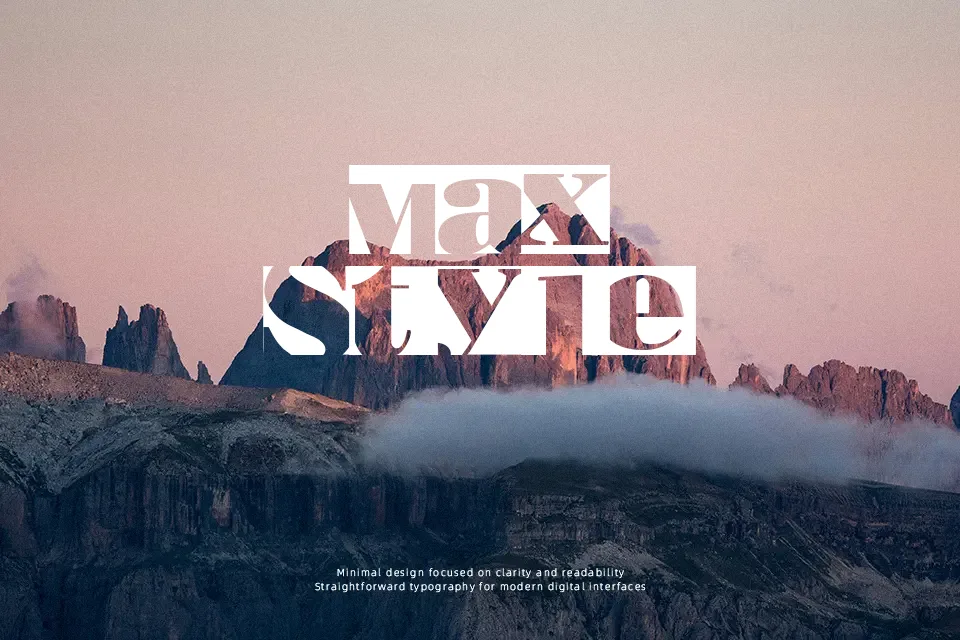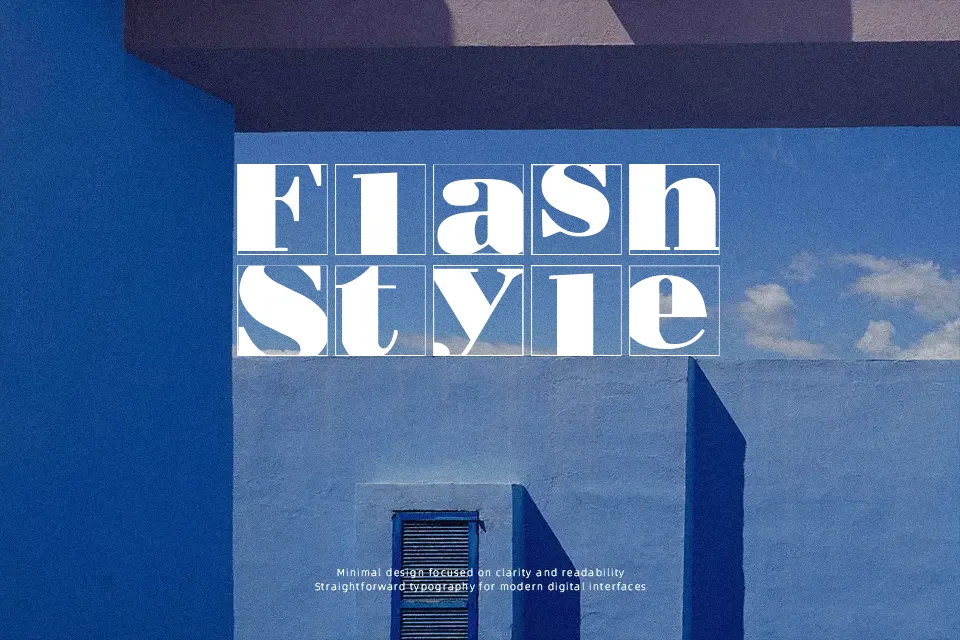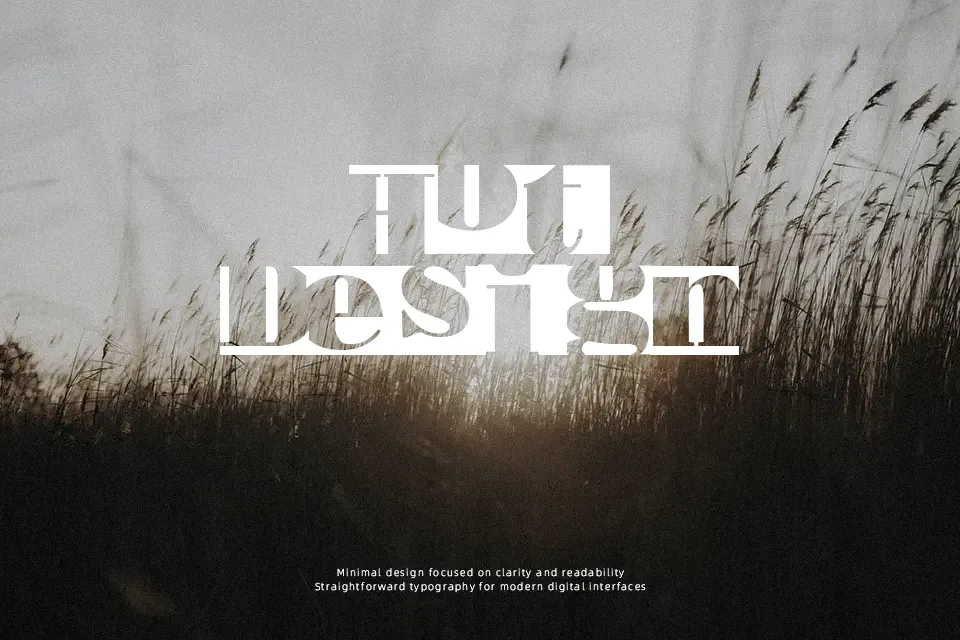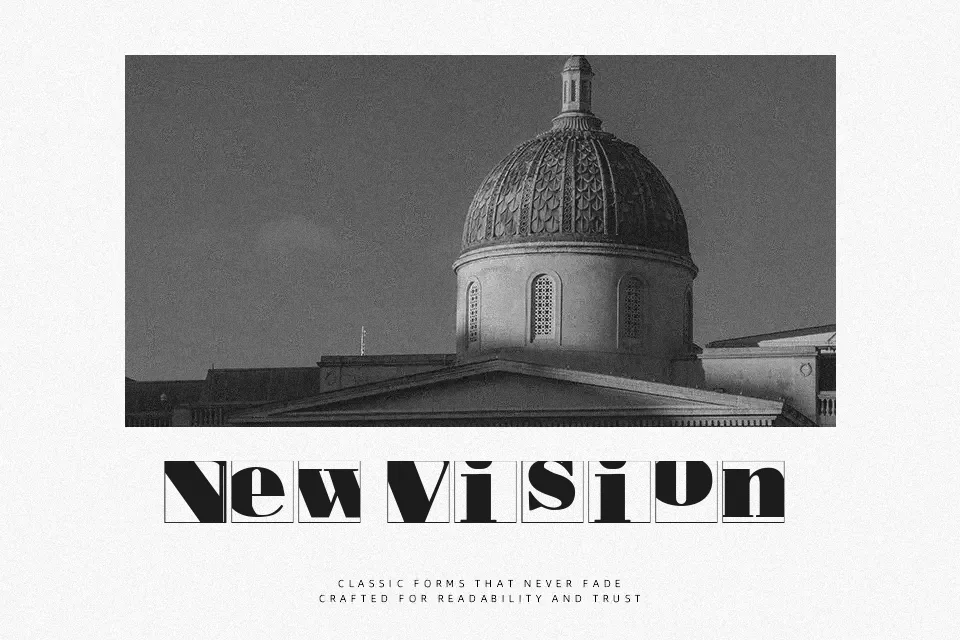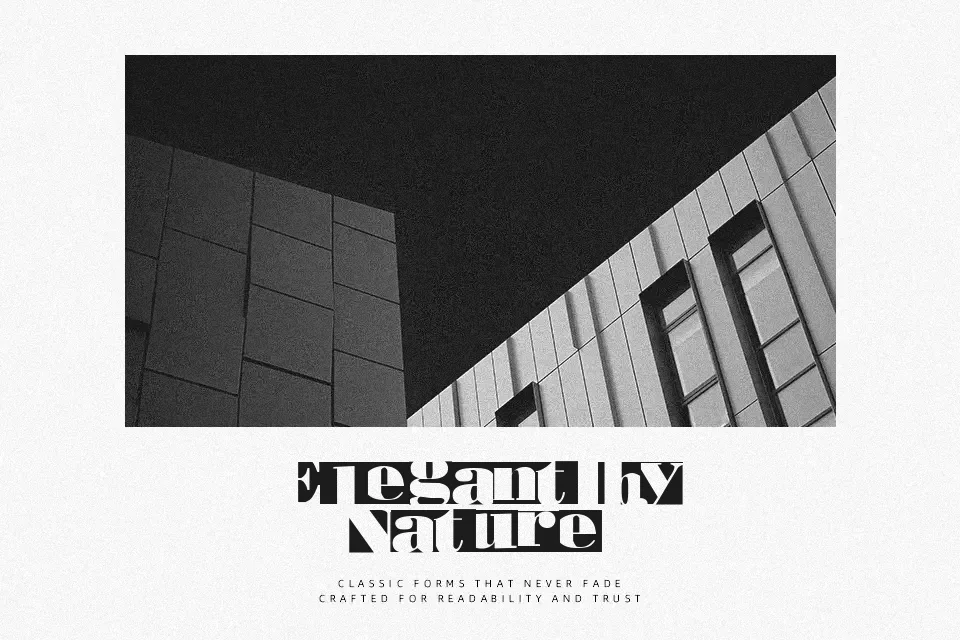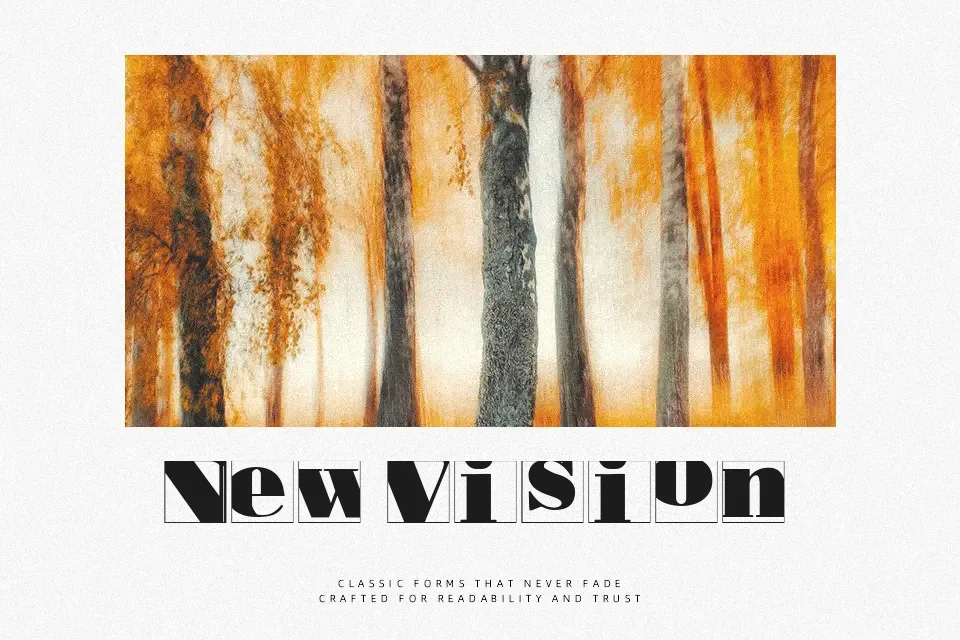
Bodoblack Squares Font
Bodoblack Squares is a distinctive decorative typeface featuring heavy serif letterforms framed within solid geometric tiles. The strong contrast between robust text and rigid boundaries gives it a striking, architectural presence. Available in standard and inverted styles, it commands immediate attention.
This typeface works exceptionally well when typography needs to act as a standalone graphic element, such as in retro-inspired posters or bold editorial headers. However, due to the prominent block enclosures, it becomes illegible at smaller sizes and should never be used for body text. It offers an excellent option for designers looking to add a dramatic, structured aesthetic to short display copy.
Dramatic poster titles
Eye-catching packaging elements
Creative editorial headers
Standalone typographic logos
Long paragraphs or body copy
Small digital UI elements
Minimalist or subtle designs
Perfect for editorial, headline, and packaging, with a bold and decorative style.